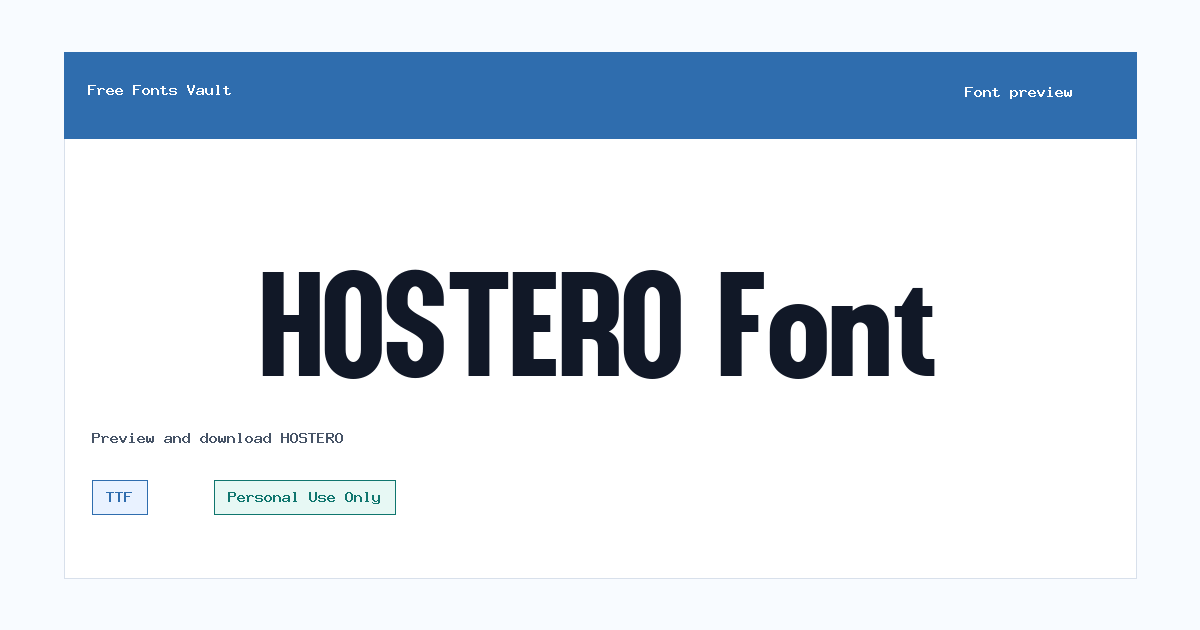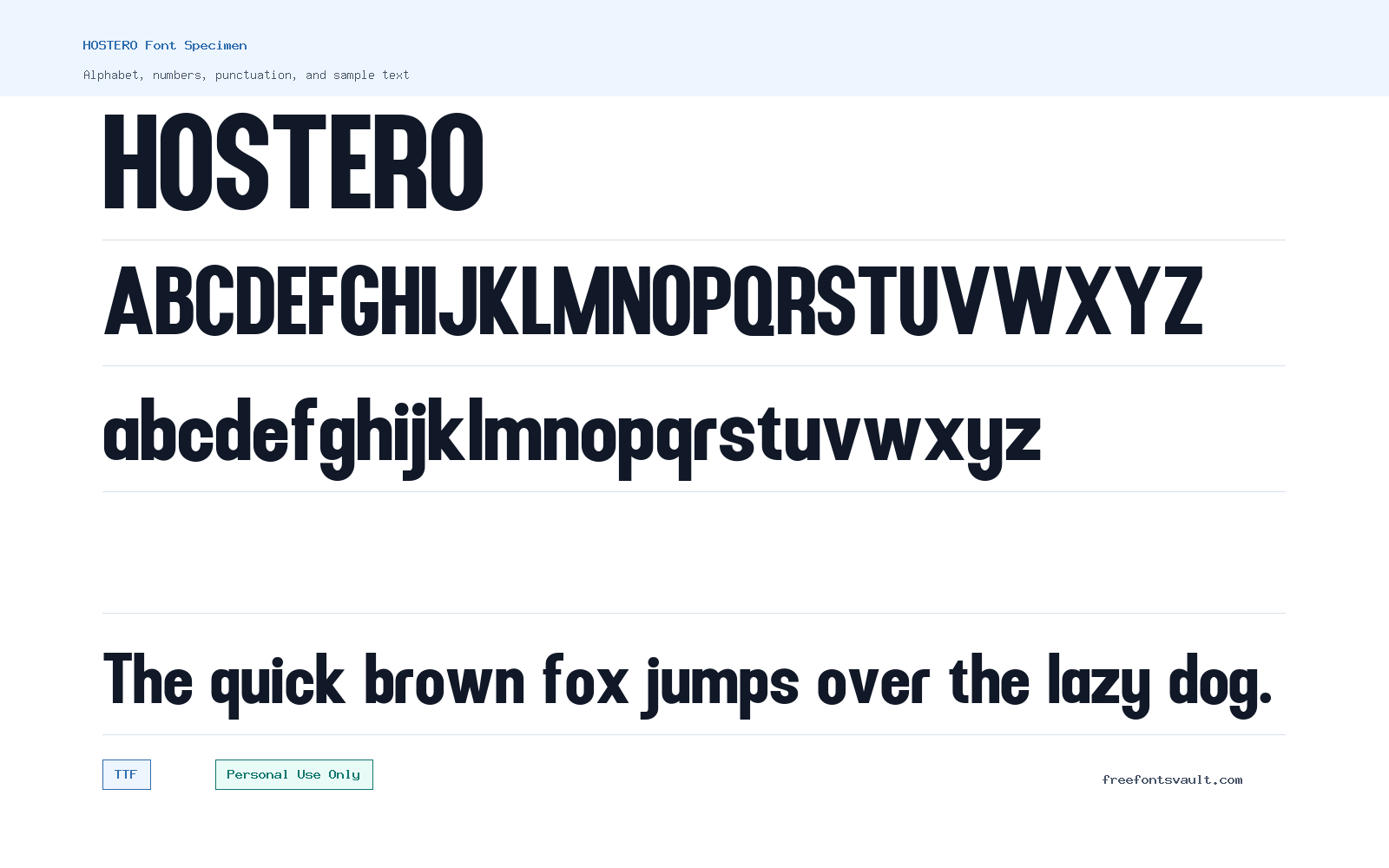
HOSTERO
HOSTERO font.
HOSTERO is a clean sans serif font with a regular TTF style, suited to visitors who want a straightforward typeface for testing titles, display text, logo ideas, posters, and layout mockups.
About HOSTERO Font
HOSTERO has the direct, uncluttered feel people expect from a sans serif display font. The available style is regular weight, so it is easy to try in short headings, brand-name drafts, social graphics, presentation covers, and simple web layout previews. Because the font file is a TTF, it can usually be installed on desktop systems and tested in common design apps that support TrueType fonts. Use the preview box to check how the letters behave in your own words, especially if your project depends on a specific name, phrase, or title.
The safest way to judge HOSTERO is to test it with the exact text you plan to use. Try uppercase, lowercase, numbers, punctuation, and any special characters you need. A font can look strong in a sample word but feel different in a real logo draft, poster headline, or navigation label. For logo work, check spacing carefully at both large and small sizes. For posters and thumbnails, test whether the words stay clear from a distance. For web mockups, keep the line lengths short at first and compare it with a more neutral text face for paragraphs.
HOSTERO is best treated as a headline and identity-testing font rather than a long-reading typeface. The regular weight gives you a simple starting point, but it also means you should not assume a full family with bold, italic, or multiple weights. If your design needs hierarchy, pair HOSTERO with a quiet sans serif for body copy or a restrained serif for contrast. Avoid pairing it with another strong display font unless the layout is intentionally experimental; two expressive headline faces can compete and make the design harder to read.
For branding drafts, HOSTERO can be useful in early logo exploration, packaging mockups, portfolio covers, digital banners, and mood boards. Keep the letter spacing natural at first, then adjust only after you have tested the wordmark at different sizes. If you plan to outline the type or modify letterforms, save an editable copy of the original text layer so you can compare your changes. For posters, try it in short phrases rather than long blocks. For website concepts, use it in hero headings, buttons, or section titles while relying on a web-safe or licensed body font for readable paragraphs.
- Useful for short display text, logo drafts, poster headings, and web mockups
- Simple single-style setup that is easy to preview and test
- Best evaluated with real project text, spacing checks, and size tests
- Logo concepts and brand-name experiments
- Poster titles, cover text, and social media graphics
- Website hero headings and interface mockups
- Packaging drafts, portfolio headers, and presentation covers
- Short display phrases where clarity matters
The designer is listed as FLAWLESSANDCO. No foundry name or designer website is available in the font listing.
What style of font is HOSTERO?
HOSTERO is listed as a sans serif font with a regular, normal-style weight.
Is HOSTERO good for body text?
It is better to start with short display text such as headings, names, posters, and mockups. For long paragraphs, pair it with a more neutral reading font.
Who designed HOSTERO?
The designer is listed as FLAWLESSANDCO.